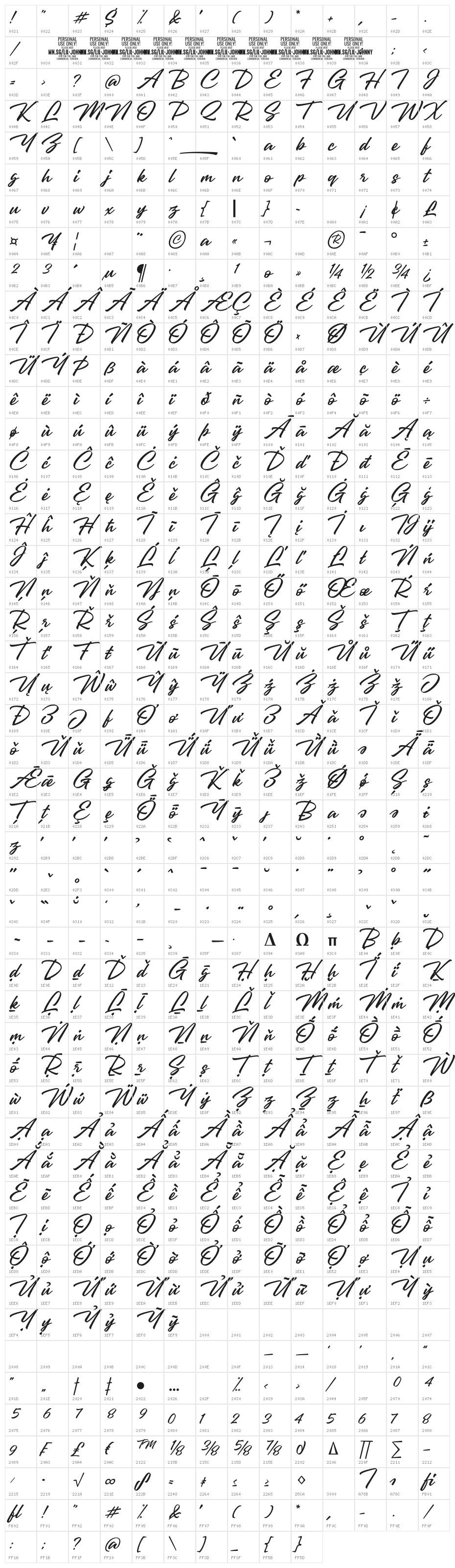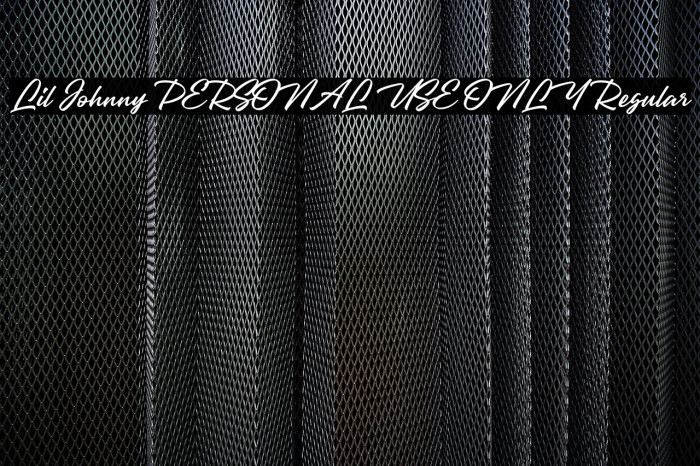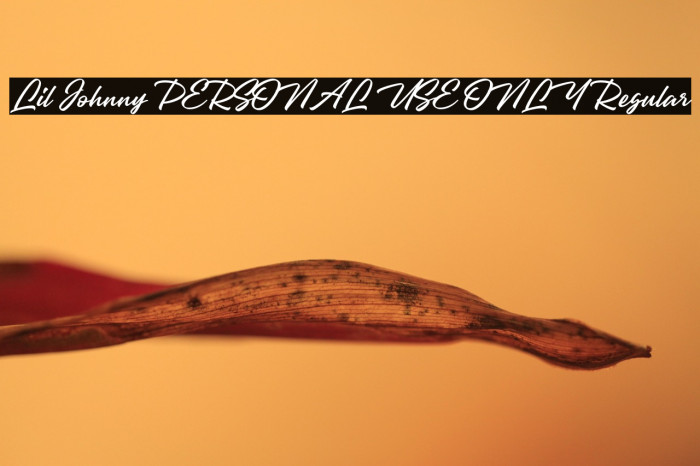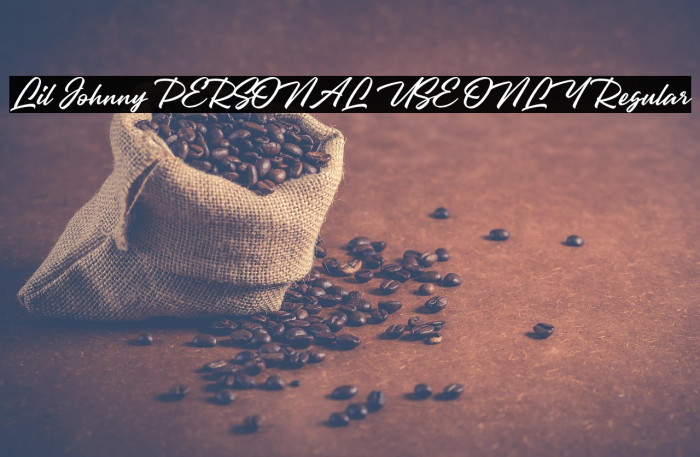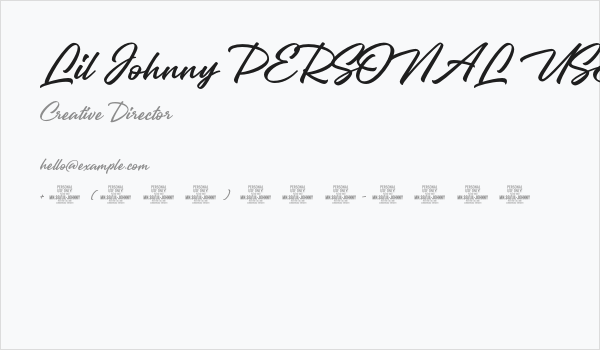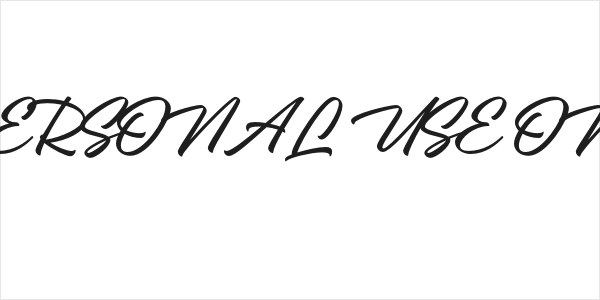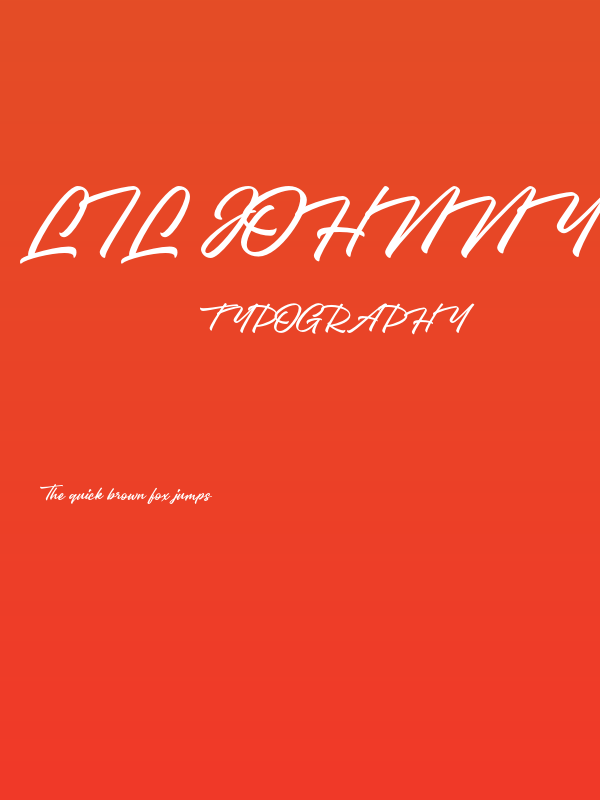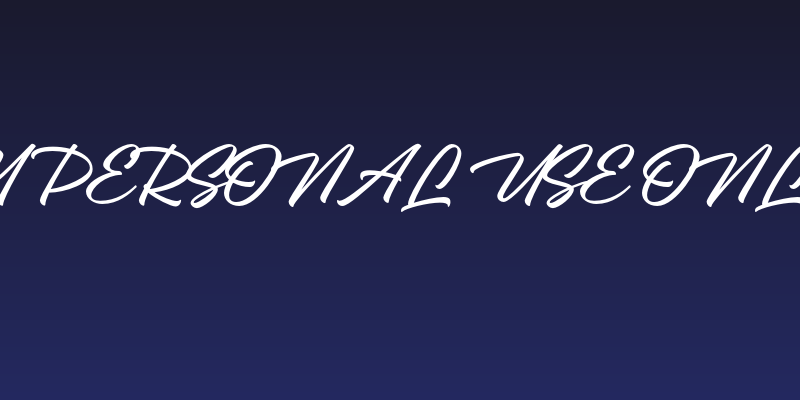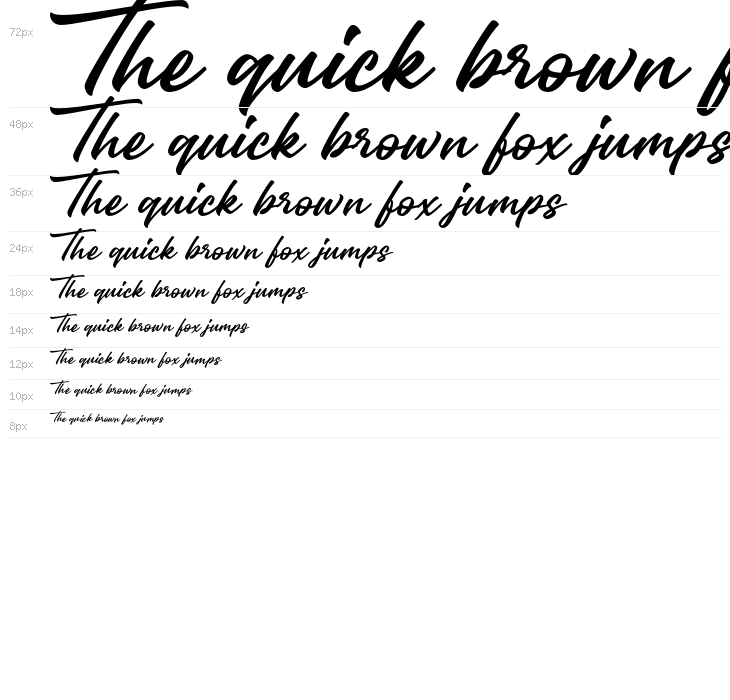
Lil Johnny PERSONAL USE ONLY Regular Font
Lil Johnny PERSONAL USE ONLY Regular Description
This font features a bold and dynamic script style with a modern flair. The uppercase letters exhibit a flowing, cursive design that maintains readability while adding a touch of elegance. The lowercase letters continue this theme with smooth, connected strokes that create a cohesive look. The numbers and special characters are crafted with the same attention to detail, ensuring consistency across all elements. This font's boldness makes it stand out, yet its script nature keeps it sophisticated and stylish.
| Proposed Projects | Ideal for branding, invitations, and logo design where a personal and stylish touch is desired. |